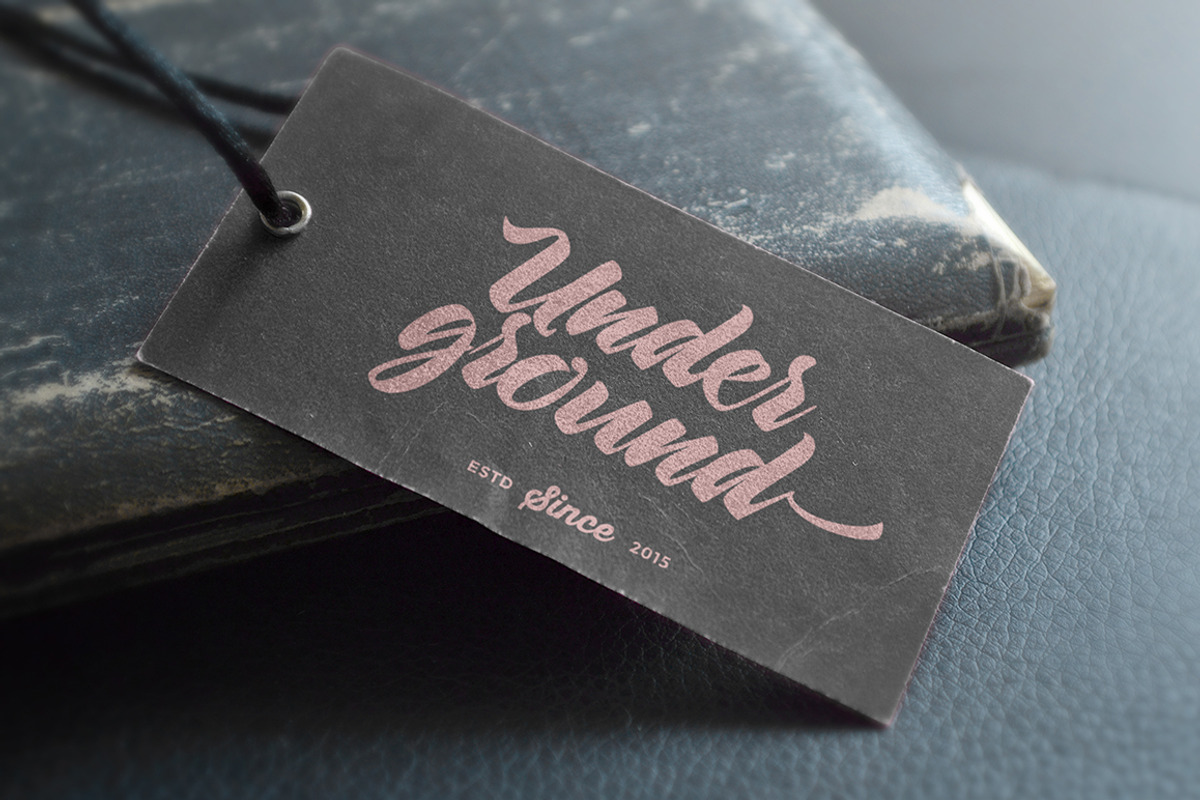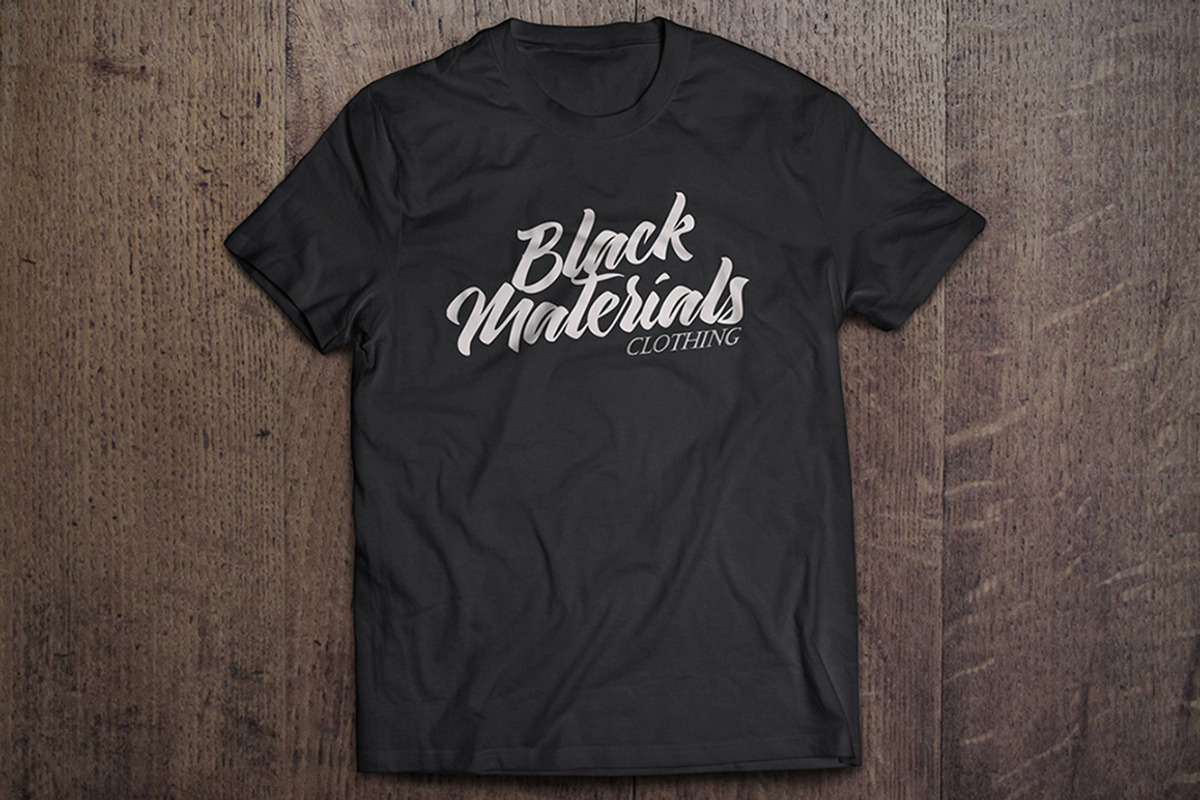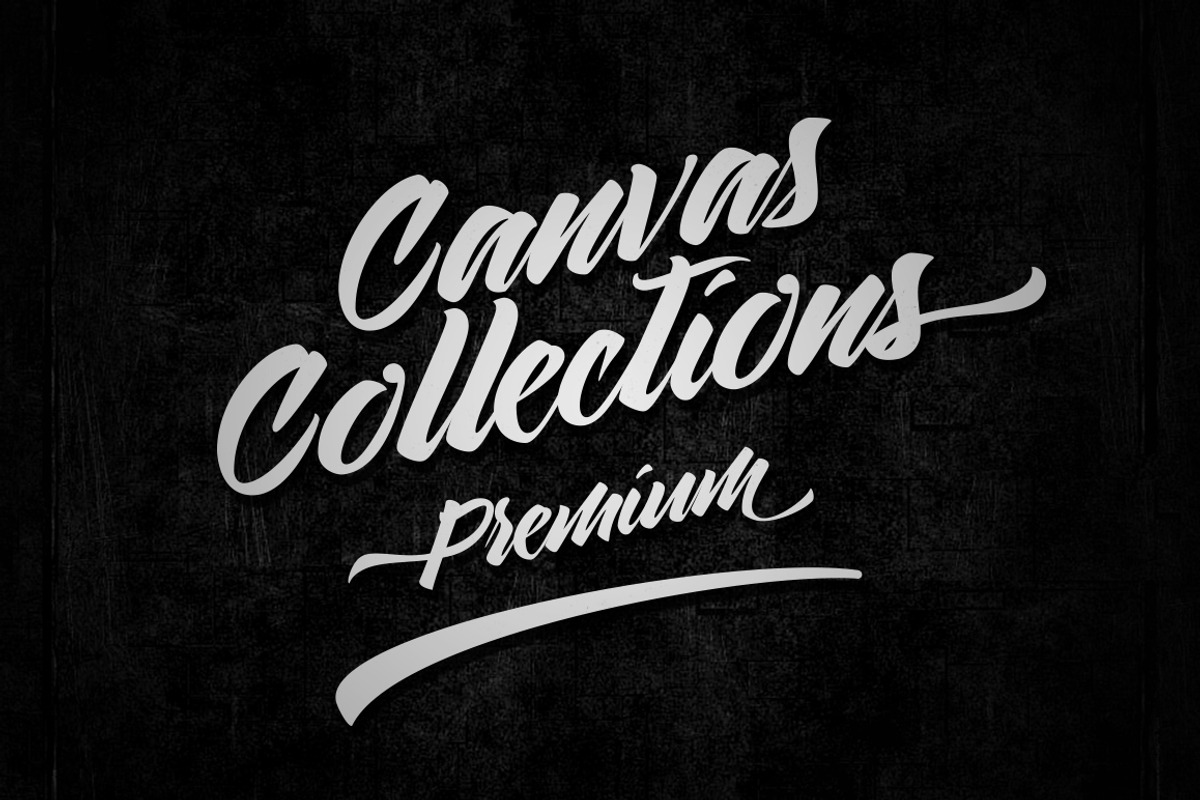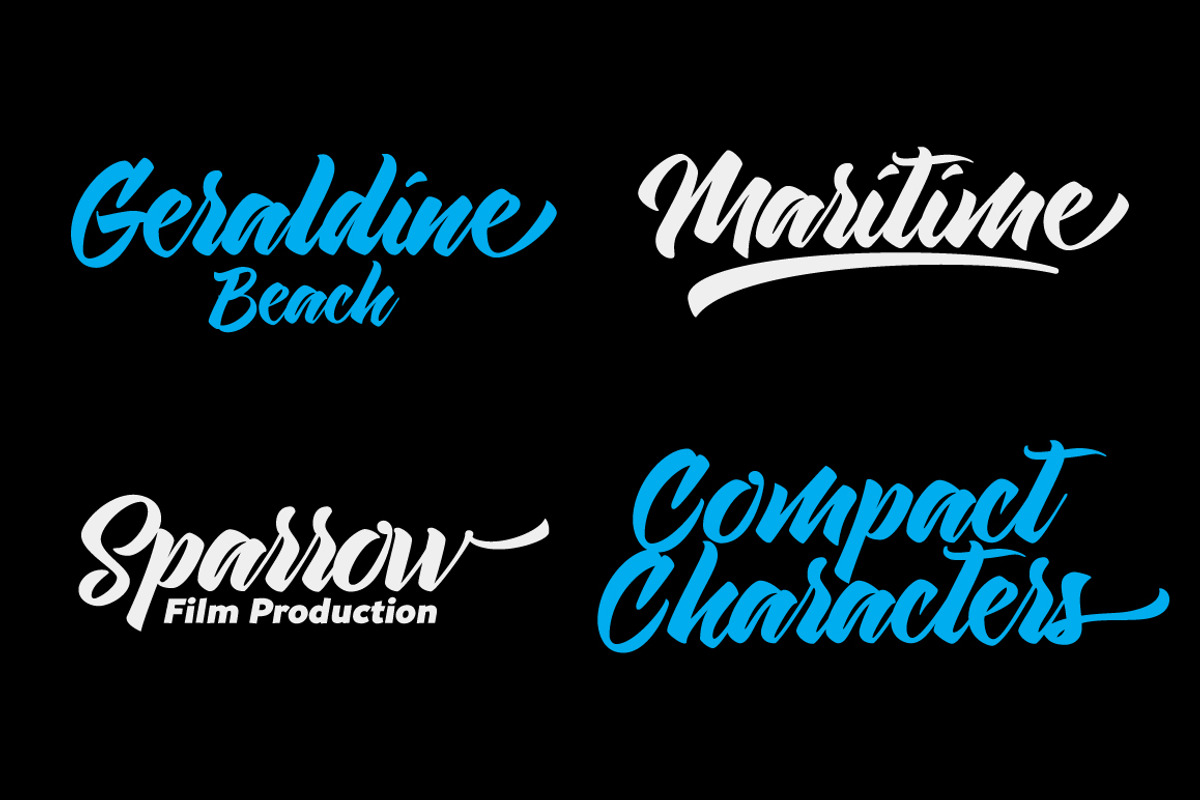
Maulina Typeface
Maulina Typeface by Get Studio is a font selected for branding, posters, packaging, typography.
- The flowing characters are ideal to make an attractive messages, mix and match Maulina with a bunch of alternative characters to fit your pr
Why Maulina Typeface is worth a look
Maulina Typeface by Get Studio fits naturally into Branding, posters, packaging, typography.